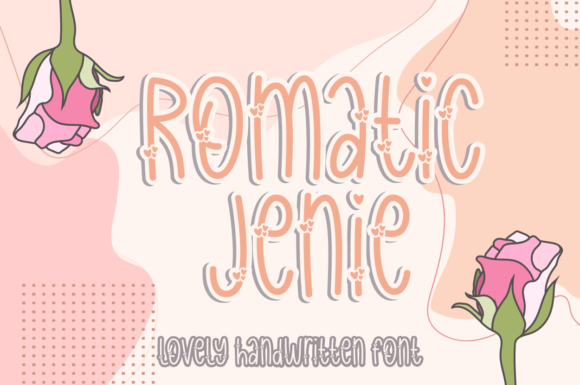
Romantic Jenie Font
Font Name : Romantic Jenie Font
Author : Soegih Artwork
Unleash the Allure of Romantic Jenie Font: A Delectable Script for Enchanting Designs
Romance is the ethereal tapestry of emotions, a whispered promise of love, a symphony of hearts beating in harmony. It's a story penned with a quill dipped in moonlight, each stroke a caress of longing. Imagine a font that captures this essence, a font that transforms words into whispered sweet nothings, a font that breathes life into your heartfelt creations. Welcome to the captivating world of Romantic Jenie Font.
Crafted with meticulous care by the masterful hand of Soegih Artwork, Romantic Jenie Font is a visual embodiment of love's tender embrace. Its graceful lines flow like a gentle breeze, carrying your words like whispers of affection. Every letter is a brushstroke of artistry, a testament to the beauty of human connection.
Designed with versatility as its muse, Romantic Jenie Font adapts effortlessly to a myriad of contexts. It dances gracefully on thank-you cards, conveying gratitude with a touch of elegance. It lends its charm to quotes, transforming them into poignant expressions of the heart. Greeting cards adorned with Romantic Jenie Font become emissaries of joy, carrying messages of love and cheer.
Unleash your creativity and let Romantic Jenie Font take center stage in your logos and business cards. Its distinctive style adds a touch of sophistication and allure, leaving an indelible mark on the minds of your clientele. Every design, every project, every creation becomes a canvas for your imagination, a testament to the enduring power of love.
Romantic Jenie Font is more than just a collection of glyphs; it's an invitation to embark on a journey of emotions, a voyage into the depths of human connection. Its beauty is undeniable, its versatility unparalleled. It's the perfect font for those who seek to express their love, their passion, and their dreams.